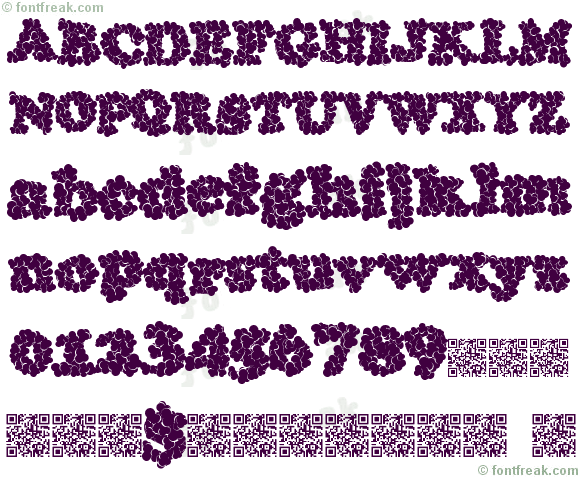
ThunderHead
About ThunderHead
ThunderHead by Xerographer Fonts is a captivating display font that embodies a unique blend of creativity and playfulness. Designed in 2013, this freeware font features a distinctive decorative style that makes it a standout choice for various design projects. The visual characteristics of ThunderHead include a bold stroke weight and an organic, rounded structure that gives it a whimsical yet robust appearance. The spacing between characters is generous, allowing for easy readability while maintaining a lively aesthetic. Each letter is adorned with soft, cloud-like shapes, enhancing its overall playful vibe.
This font is particularly well-suited for a range of creative applications. It shines in design contexts such as children’s book covers, where its fun and inviting style can capture the attention of young readers. ThunderHead also makes an excellent choice for event invitations, especially for casual gatherings like birthday parties or outdoor festivals. Its eye-catching design can elevate restaurant menus, drawing customers in with its friendly and approachable look. Additionally, the font works wonderfully for branding purposes, particularly for small businesses aiming to convey a sense of creativity and friendliness.
The primary audience for ThunderHead includes graphic designers, small business owners, and content creators looking to infuse their work with a playful yet professional touch. Its versatility makes it an ideal choice for anyone seeking to stand out in a crowded marketplace.